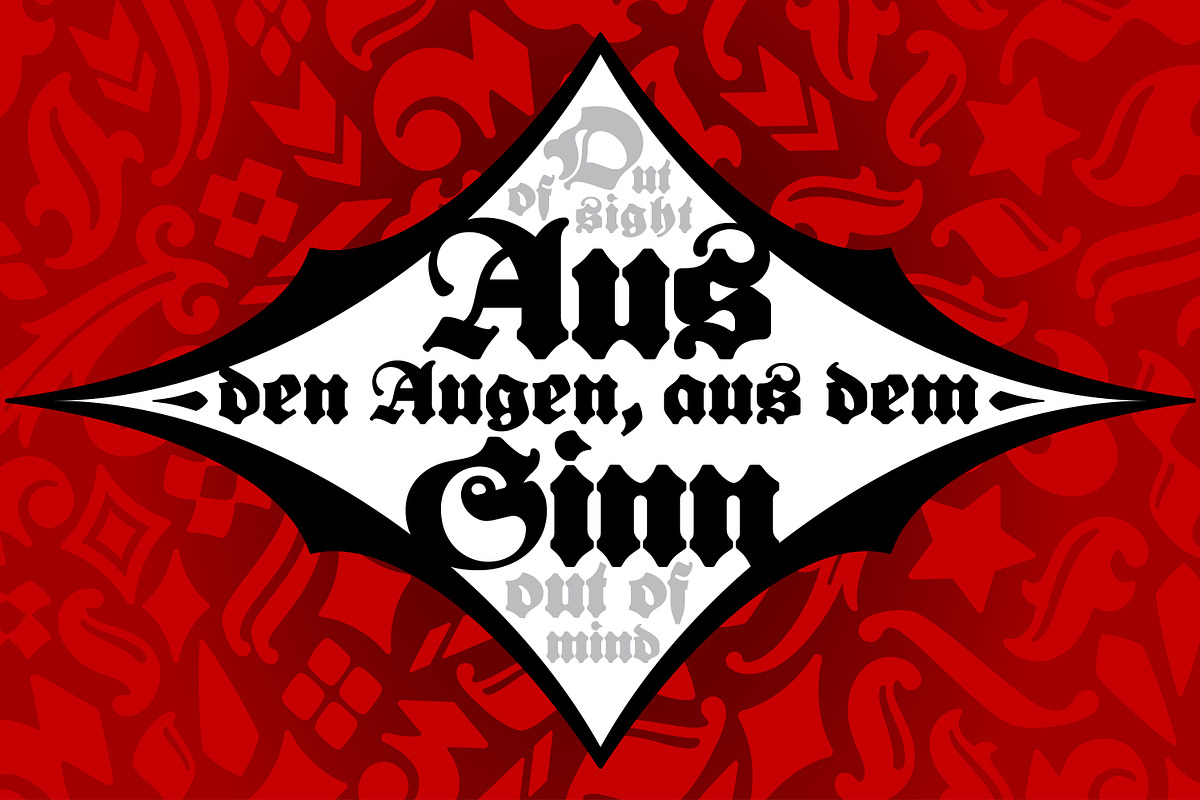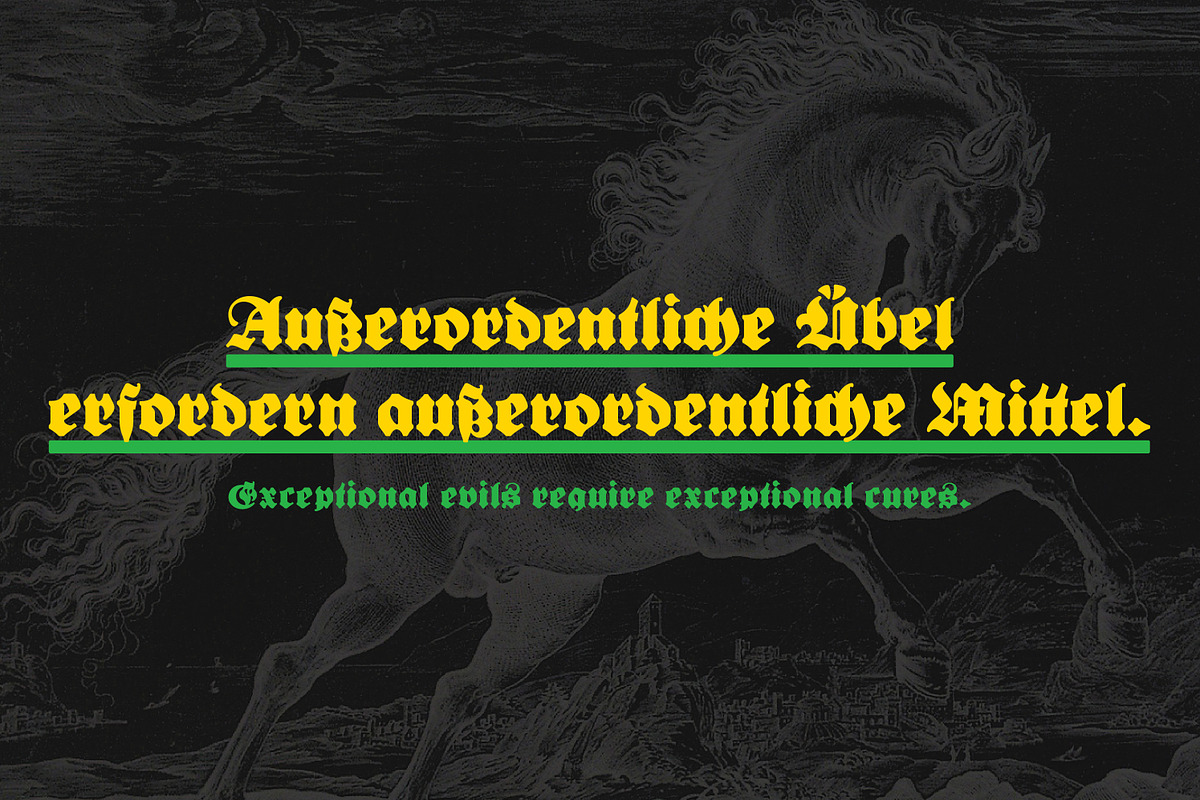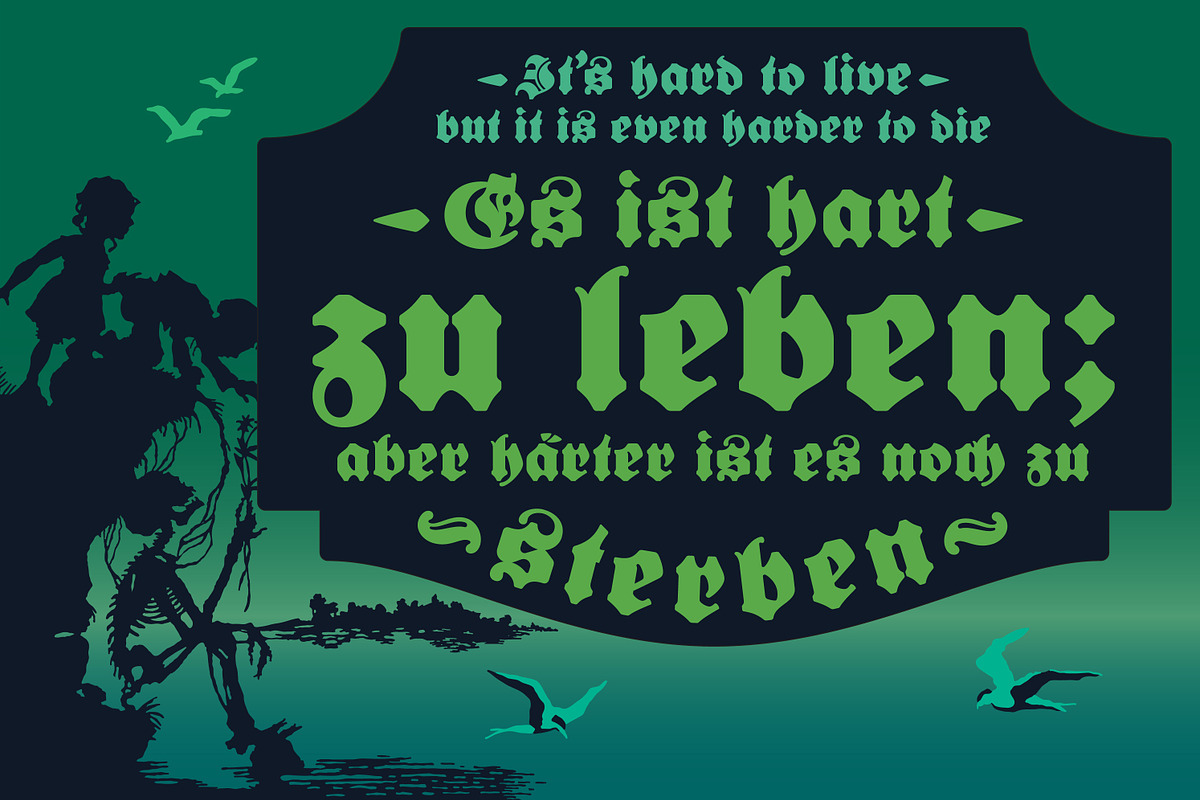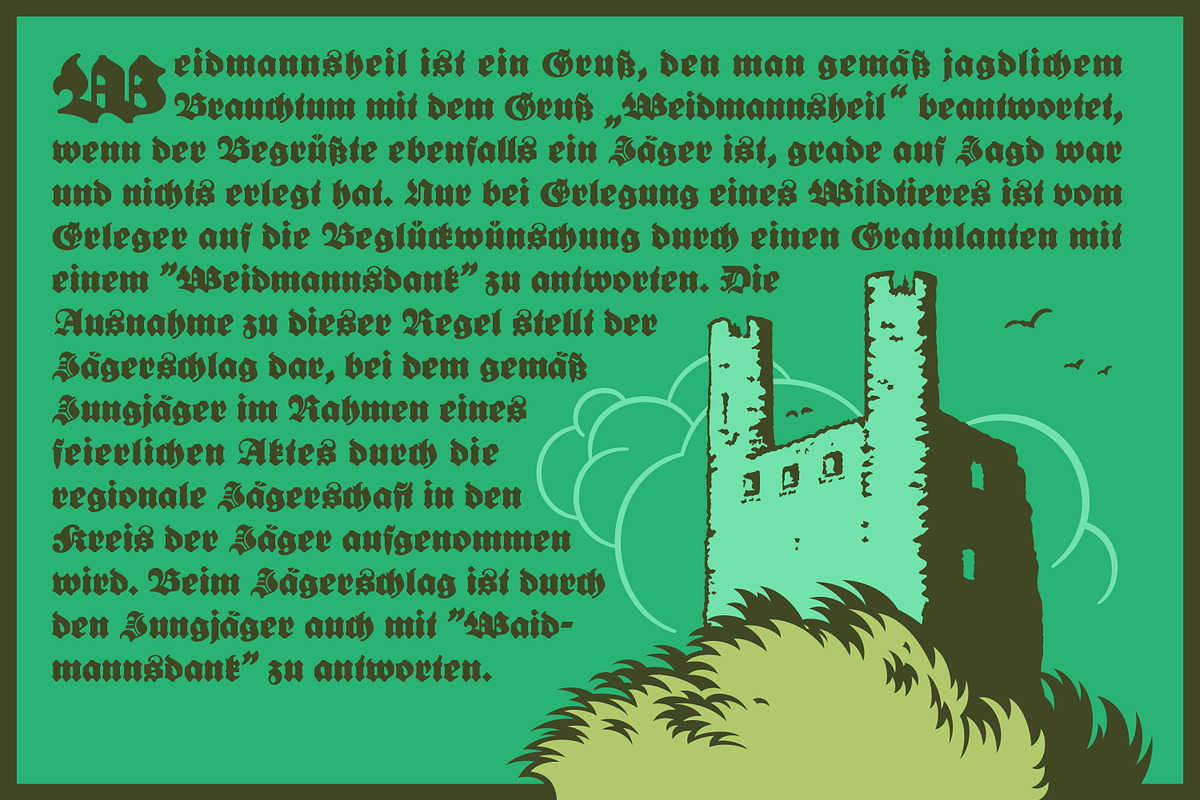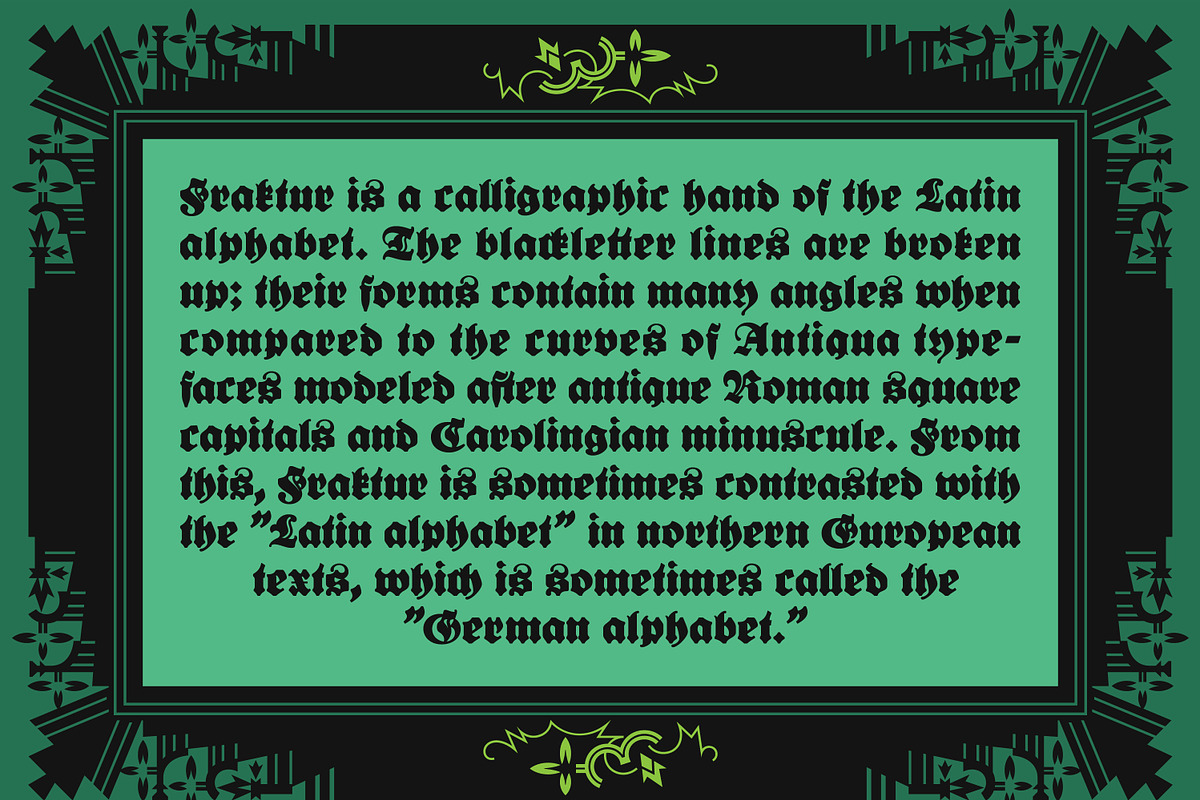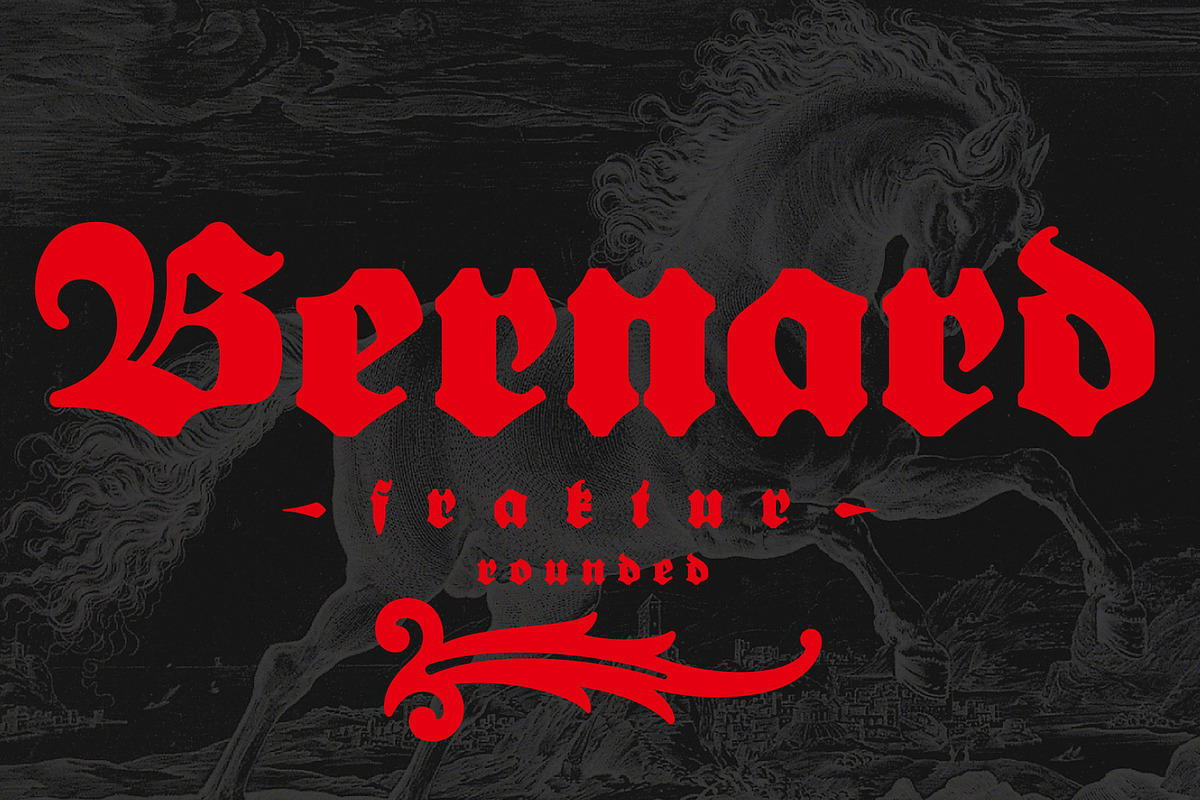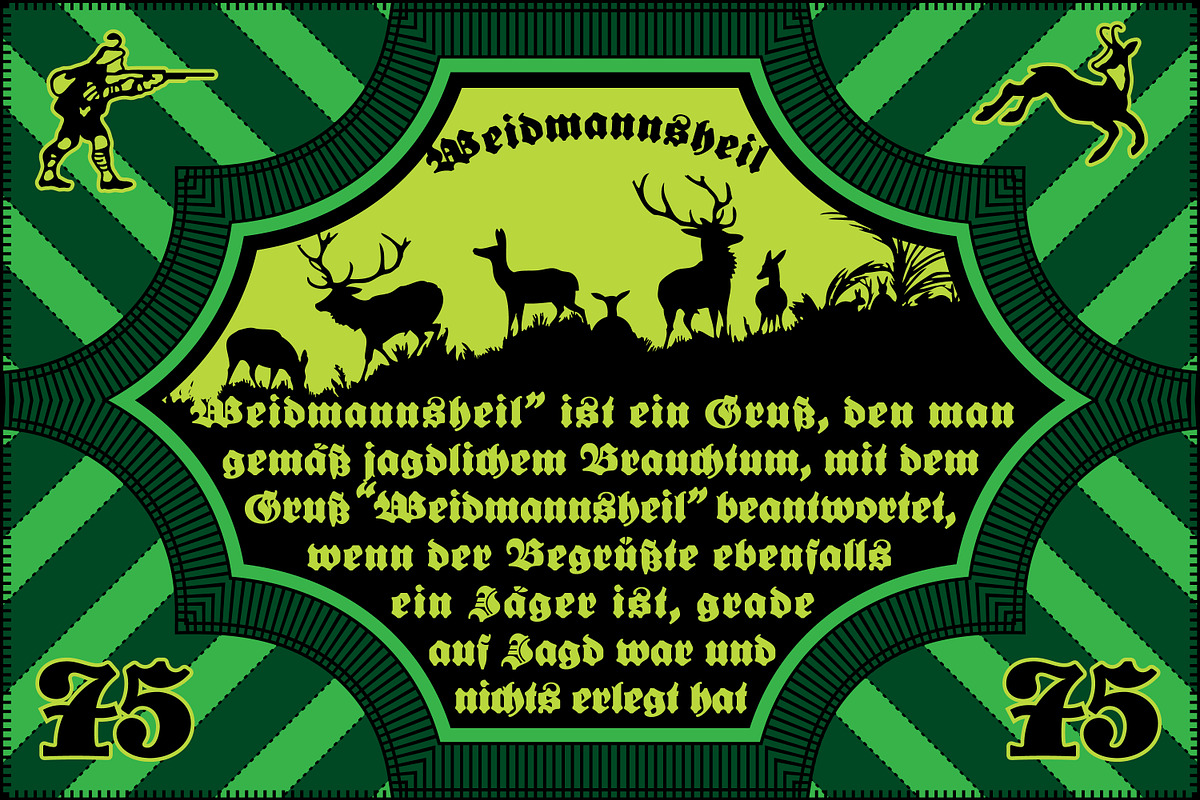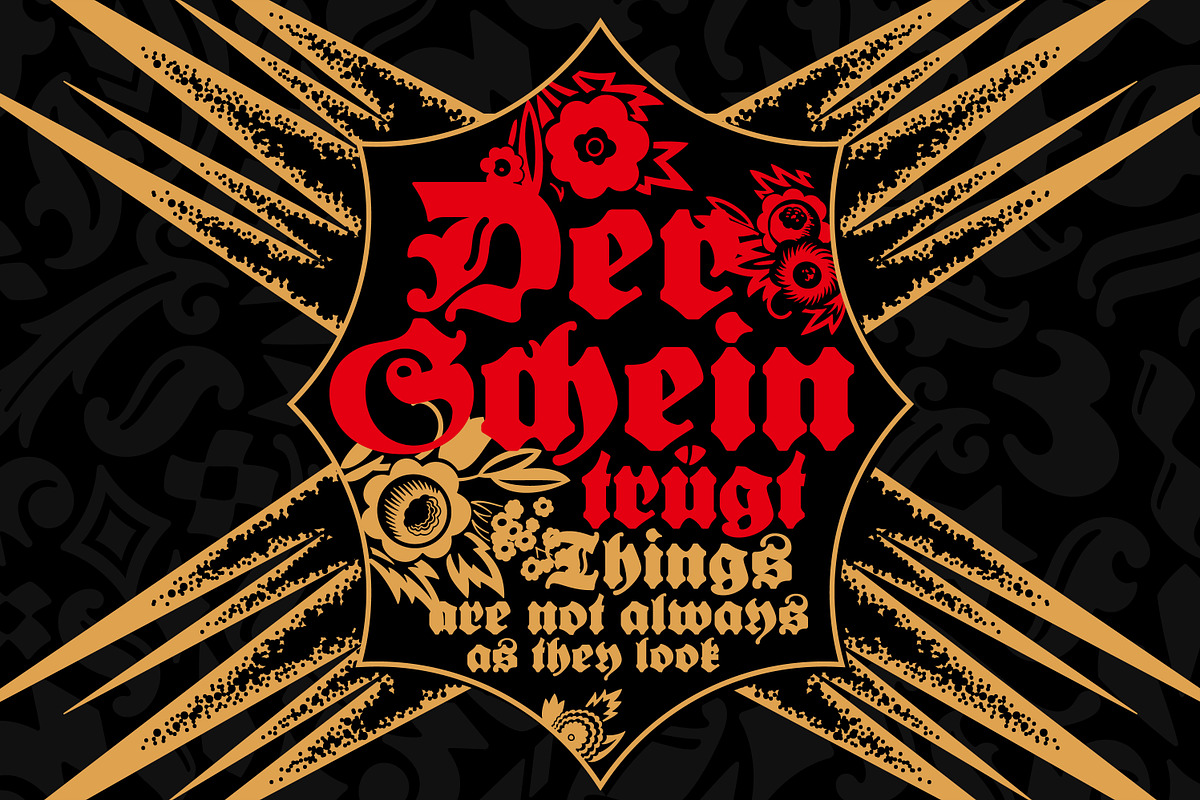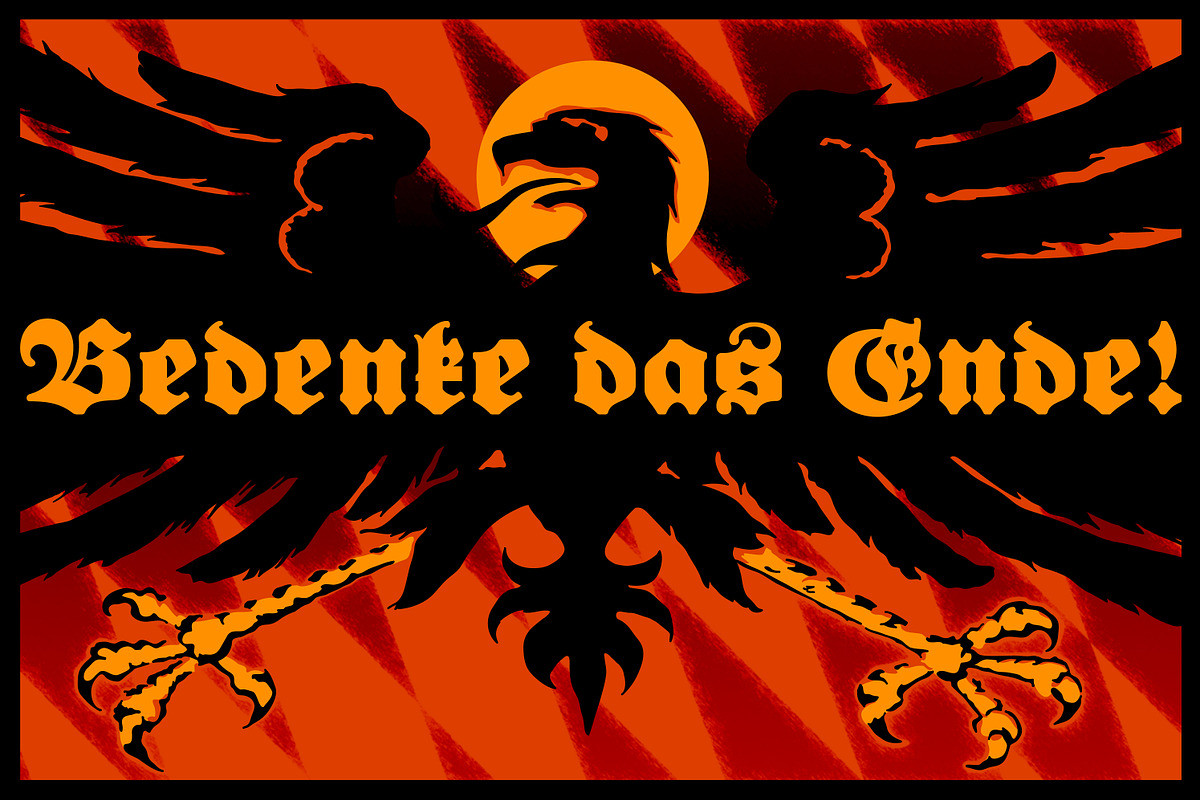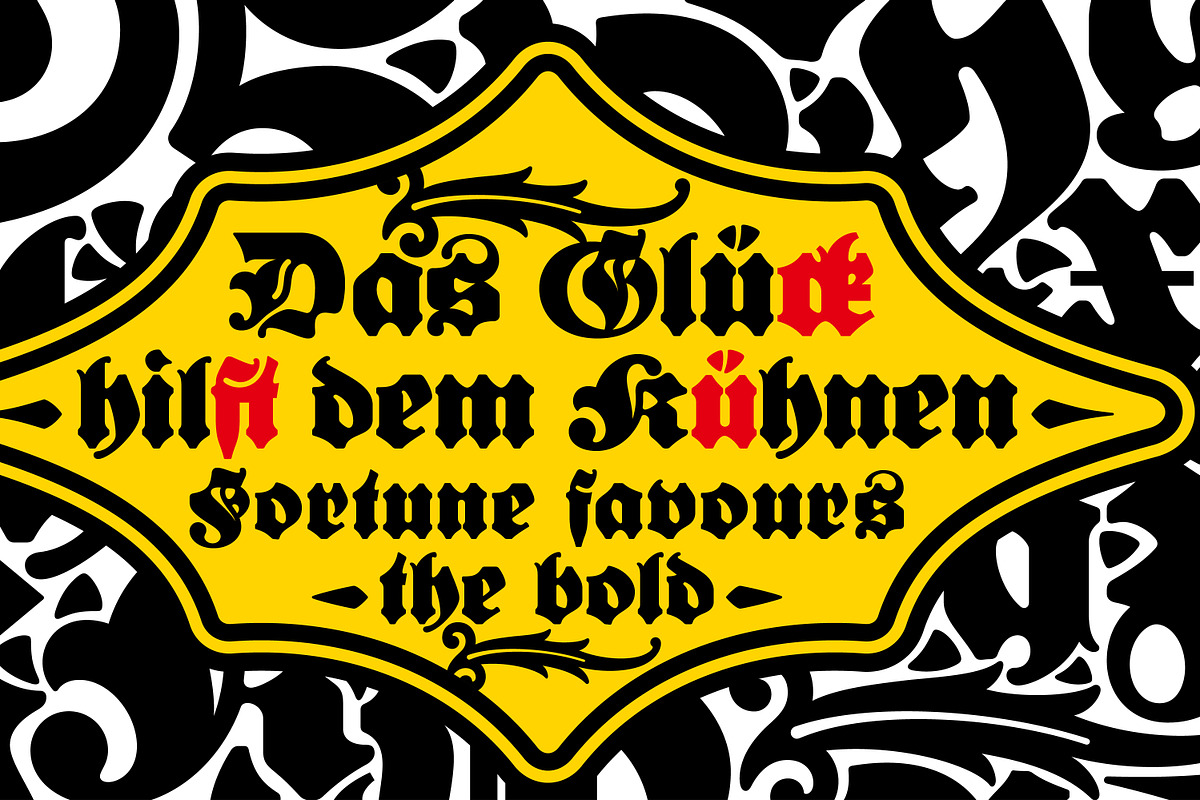
Bernard Fraktur
The term “Fraktur” comes from the Latin for “broken” or “fractured” as a reference to the fact that the letters are broken into sharp angles by comparison with the more flowing form of Roman letters or Antiqua. In most European countries, Fraktur was being slowly replaced by the Antiqua typefaces created in the 15th and 16th centuries but in Germany both typefaces coexisted until the the end of the war.
Besides creating a "typeface divide" in Europe, this split between Humanistic, Catholic Antiqua and Germanic, Protestant Fraktur was also reflected within the German-speaking region. Literary works in German were most often published in Fraktur, while scientific and learned works were set in Antiqua (Latin) type.
This exactly a century old fraktur typeface was originally created by Lucian Bernhard in 1921 under the name of Extrafette Bernhard-Fraktur and it was used in various posters and newspapers of the time. Lucian Bernhard was a famous graphic designer, type designer, and artist during the first half of the twentieth century. He is well known for helping create the design style known as Plakatstil (better said Poster Style) which used minimalist and flat colored imagery to convey the objects being advertised alongside the brand name.
This unique typeface comes to life after almost a century after its creation as a revival. Created by a master craftsman and released merely two decades before the demise of the Frakturs, this typeface is both beautiful and bold. And is this boldness that makes it unique and memorable.